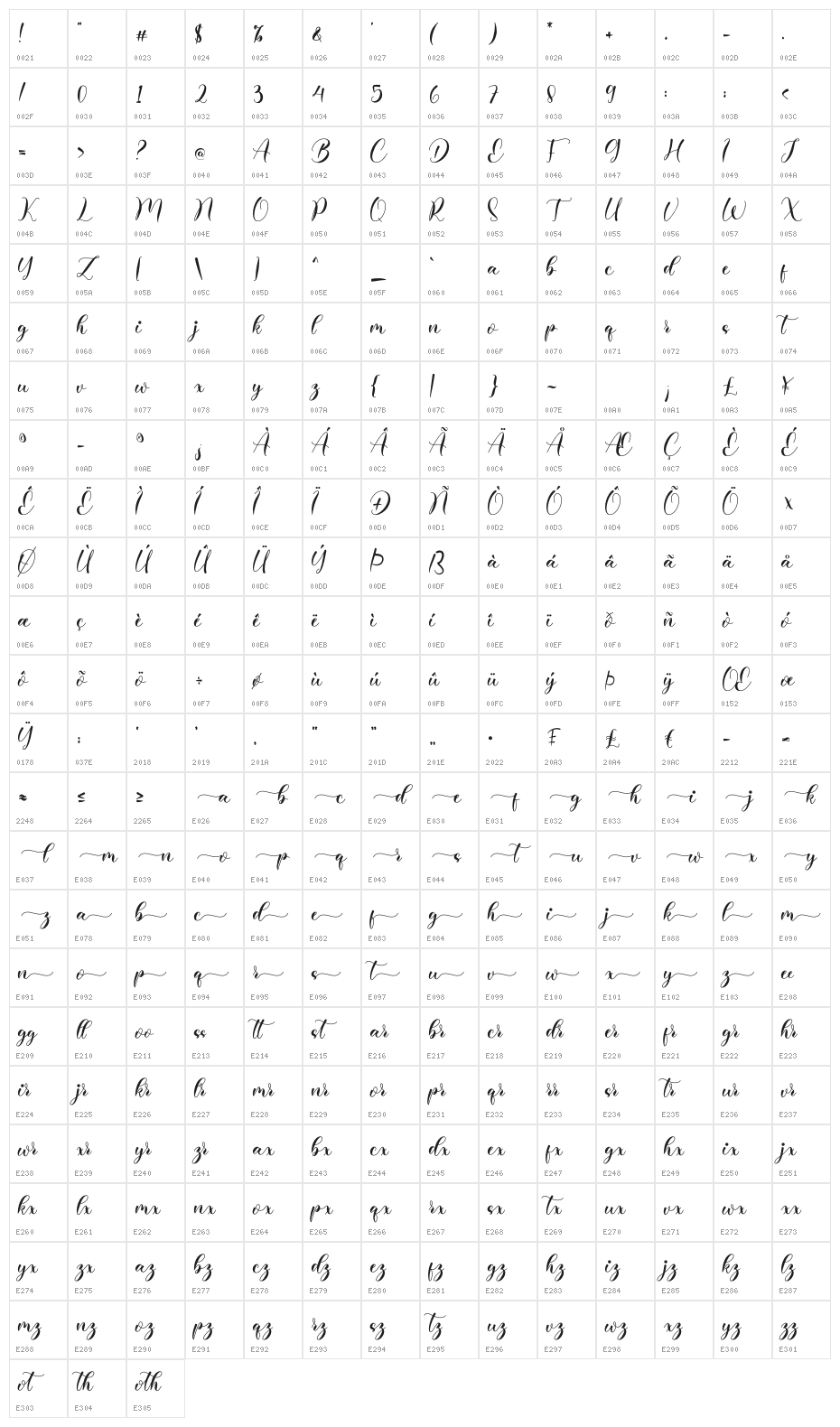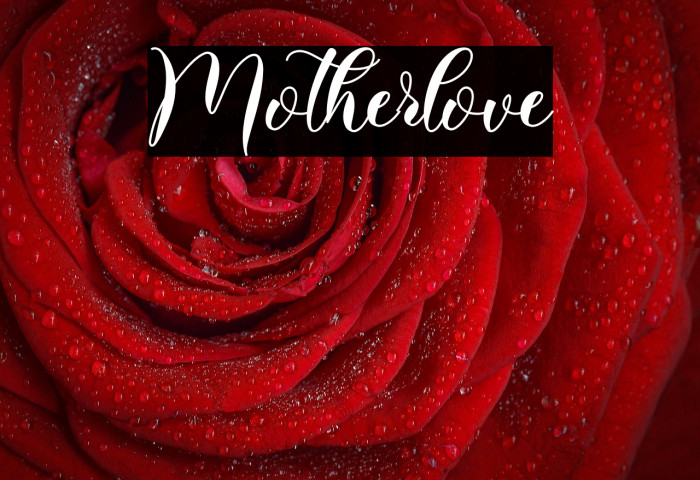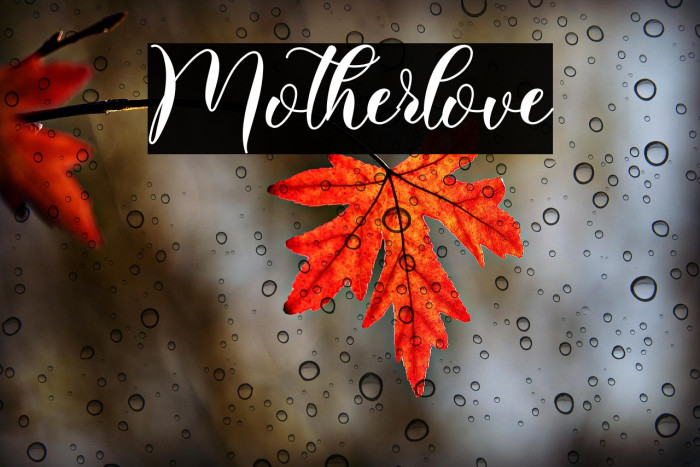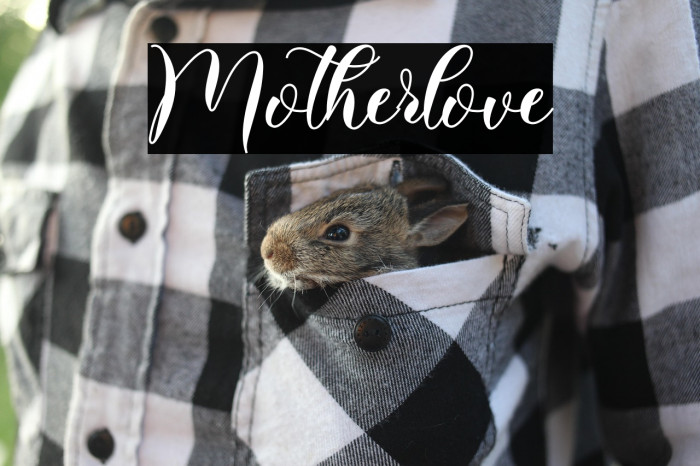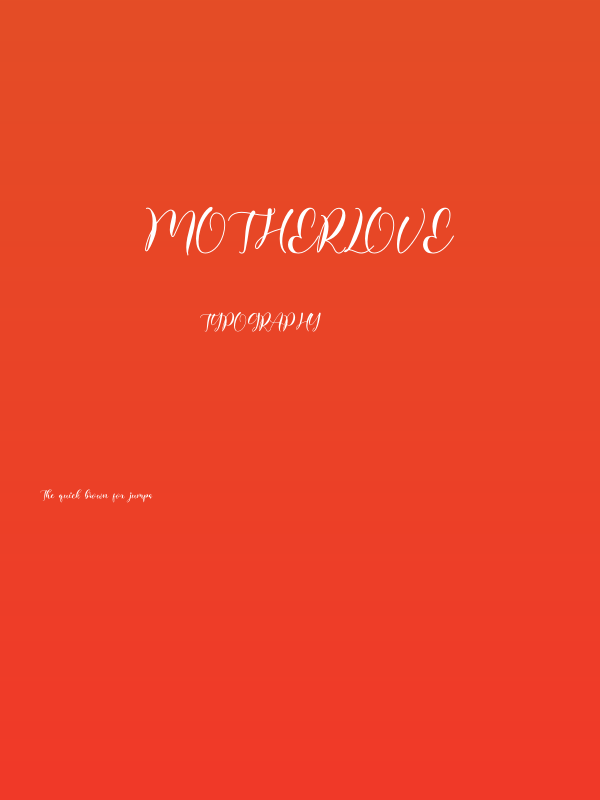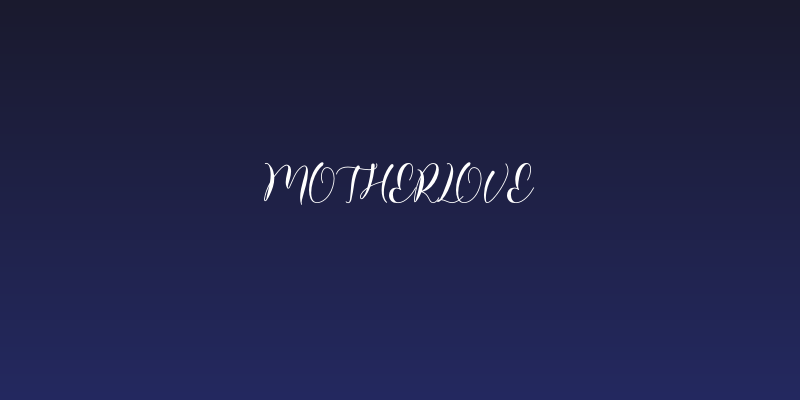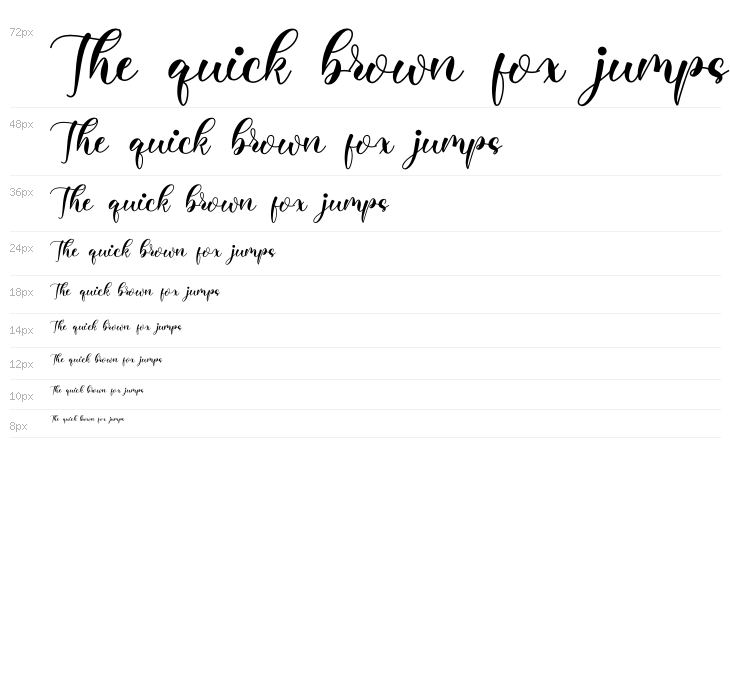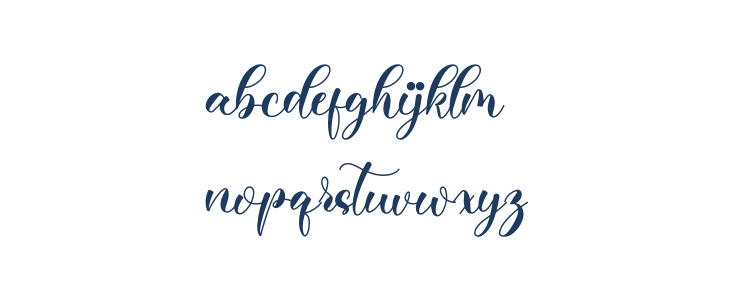
Motherlove Font
Motherlove Description
This elegant script font exudes a sense of sophistication and fluidity, characterized by its flowing, cursive style. The uppercase letters are tall and graceful, with sweeping ascenders and descenders that create a sense of movement and rhythm. The lowercase letters maintain a consistent style, with smooth curves and a slightly playful touch. The numbers and special characters are designed to complement the overall aesthetic, maintaining the same flowing lines and elegant curves. This font is perfect for projects that require a touch of elegance and charm, such as wedding invitations, greeting cards, and branding materials.
| Overall Style | Elegant, Sophisticated |
| Use Case | Headlines, Invitations, Branding |
| Proposed Projects | Ideal for wedding invitations, greeting cards, branding, and elegant design projects. |